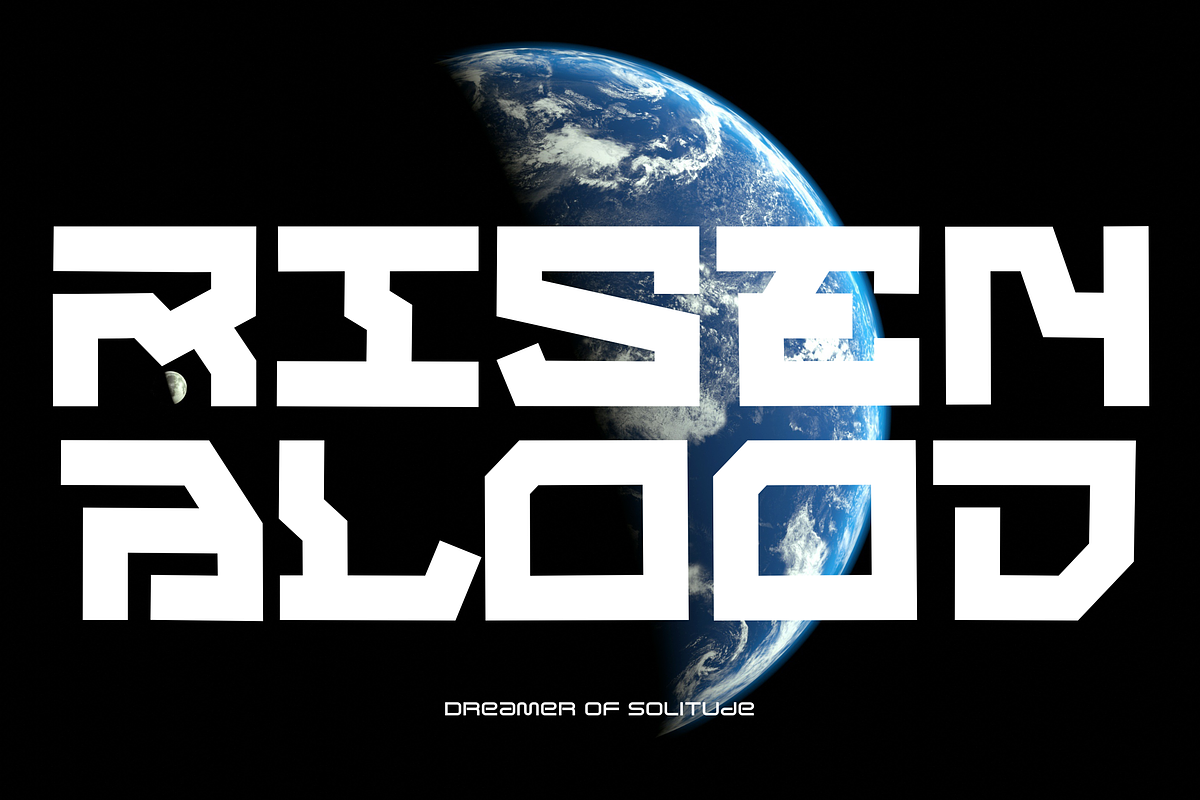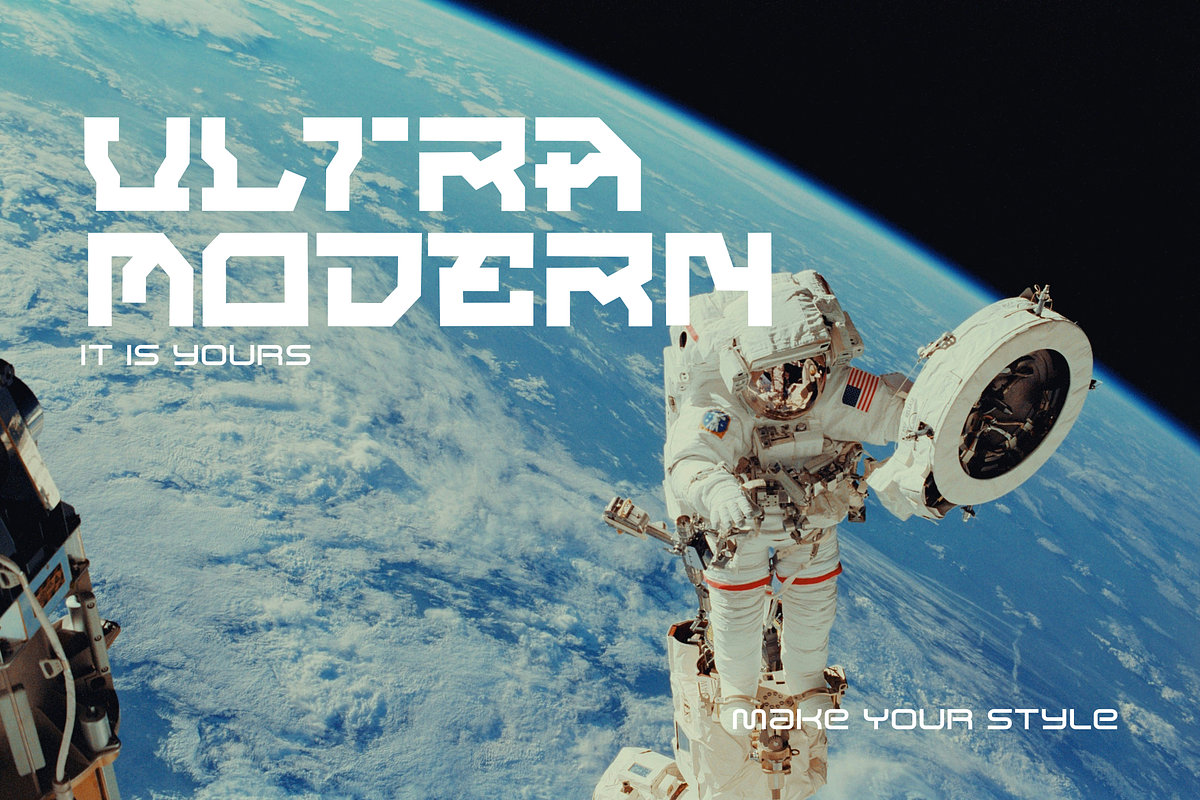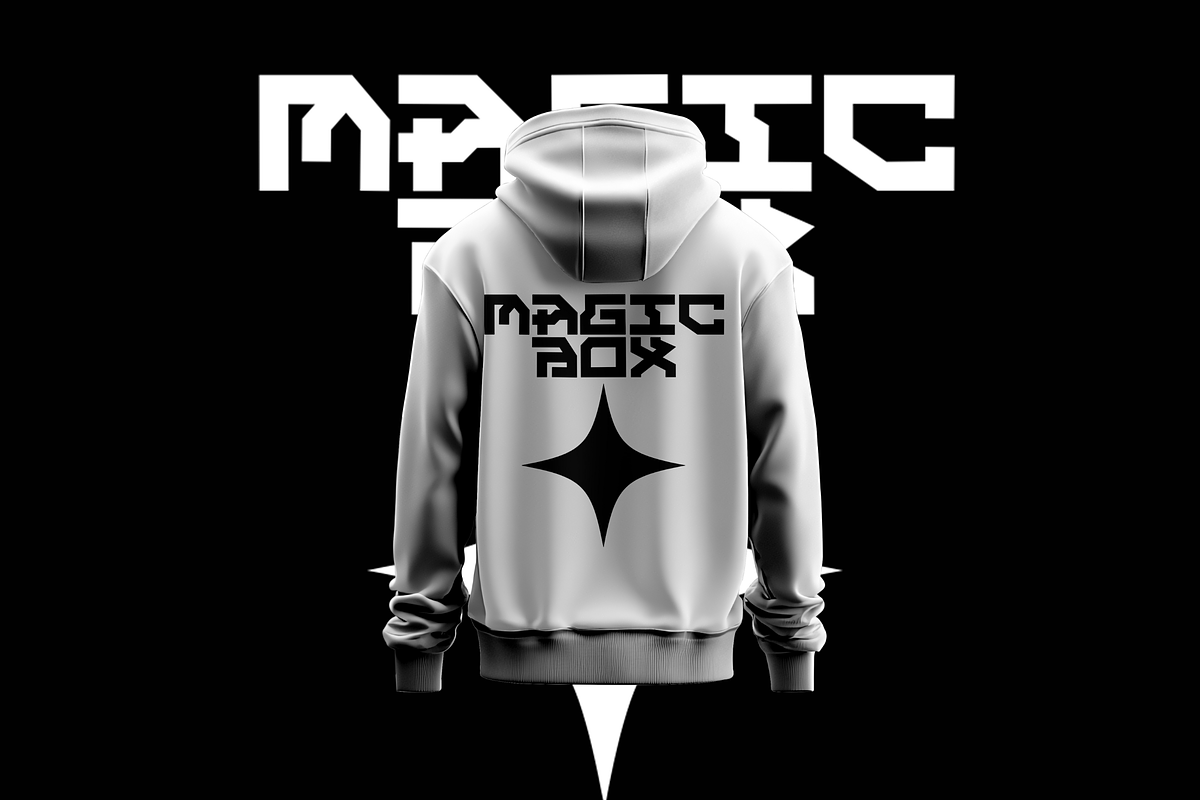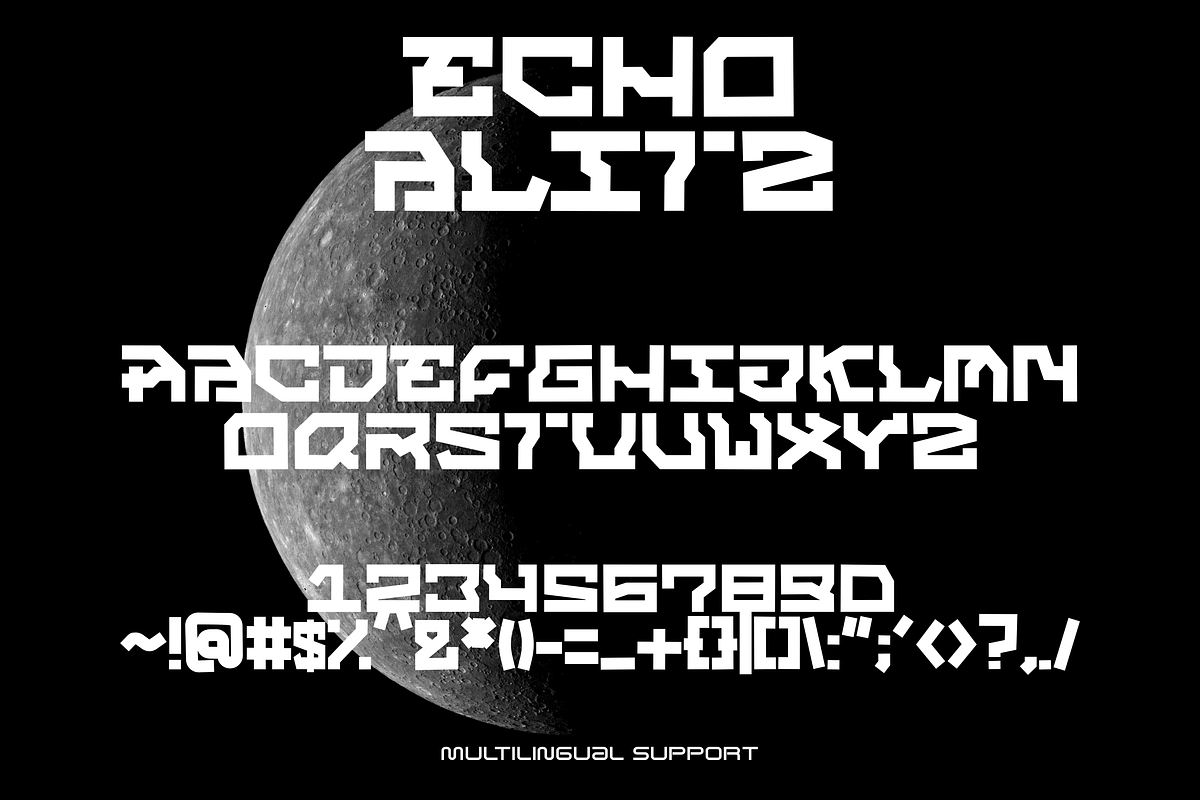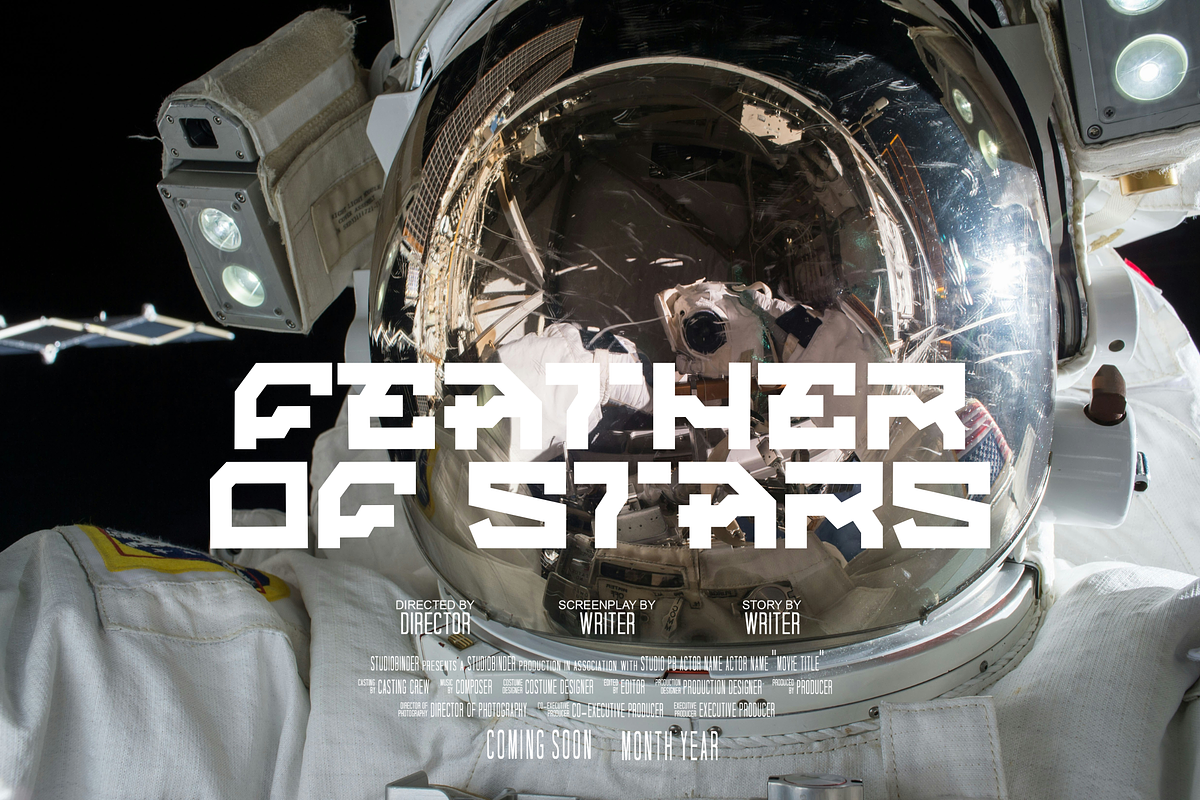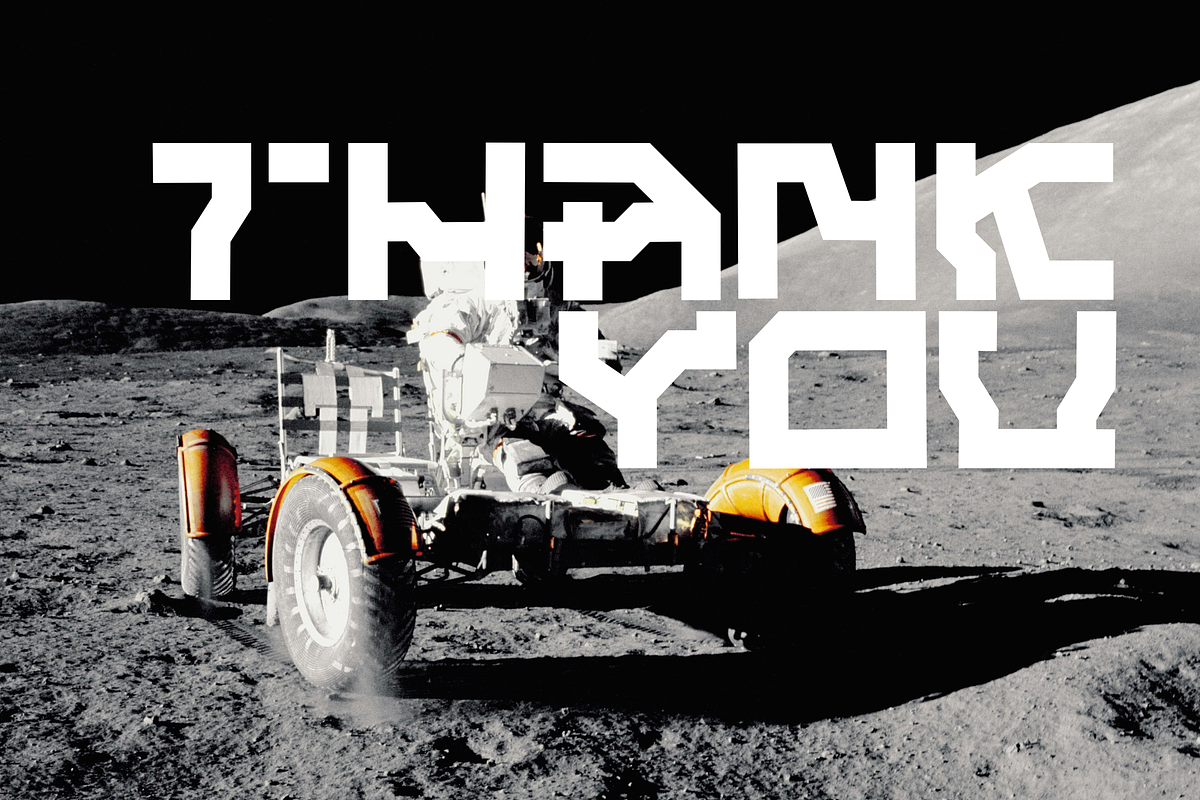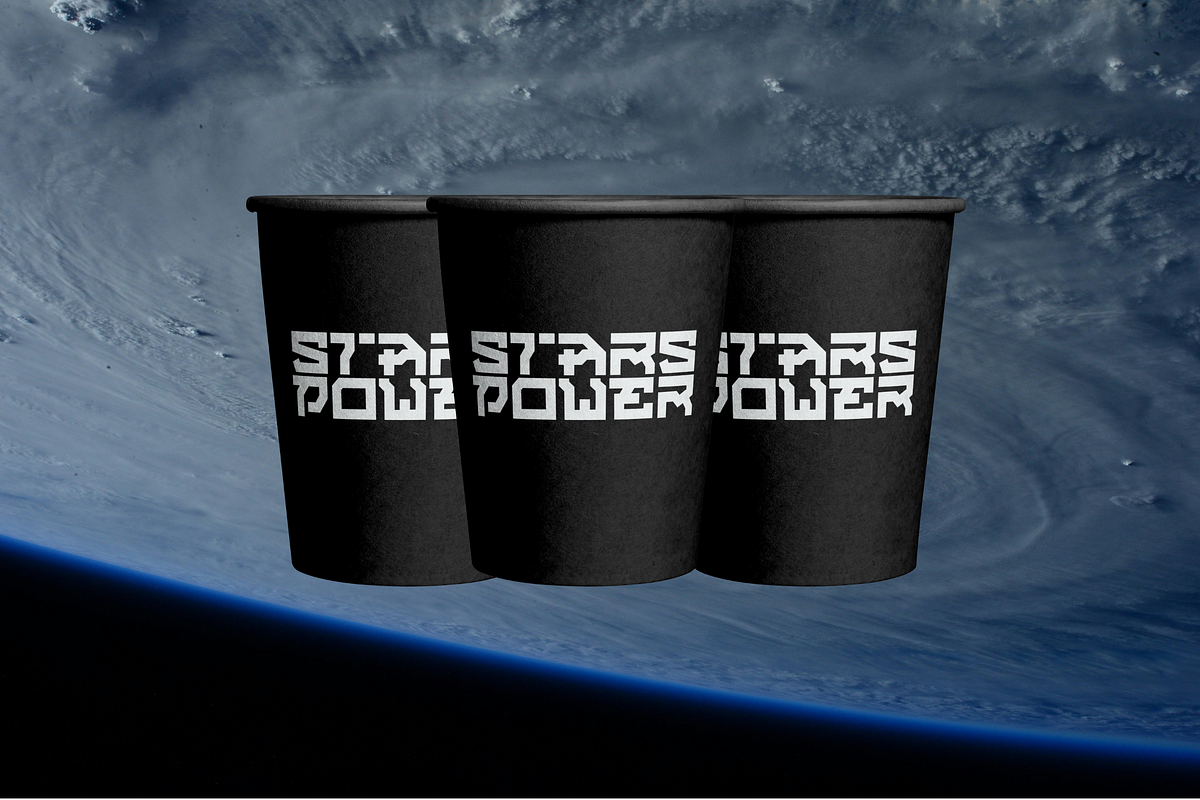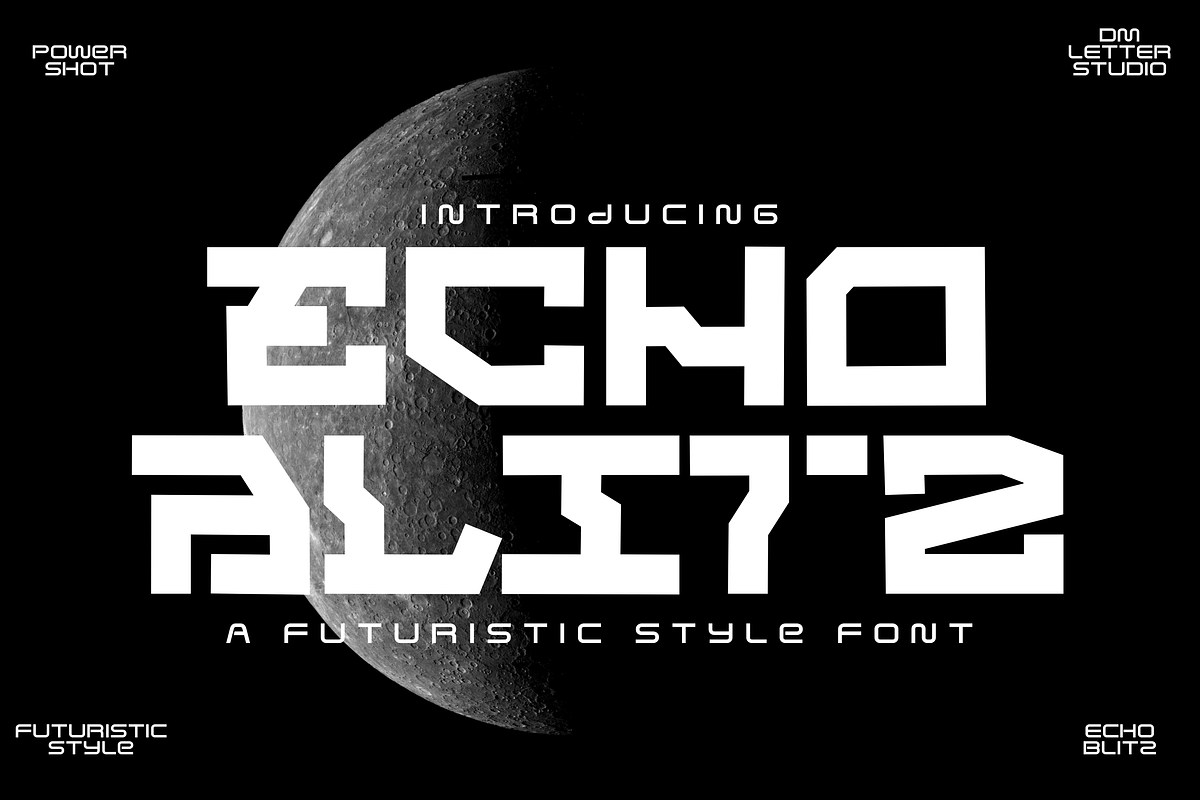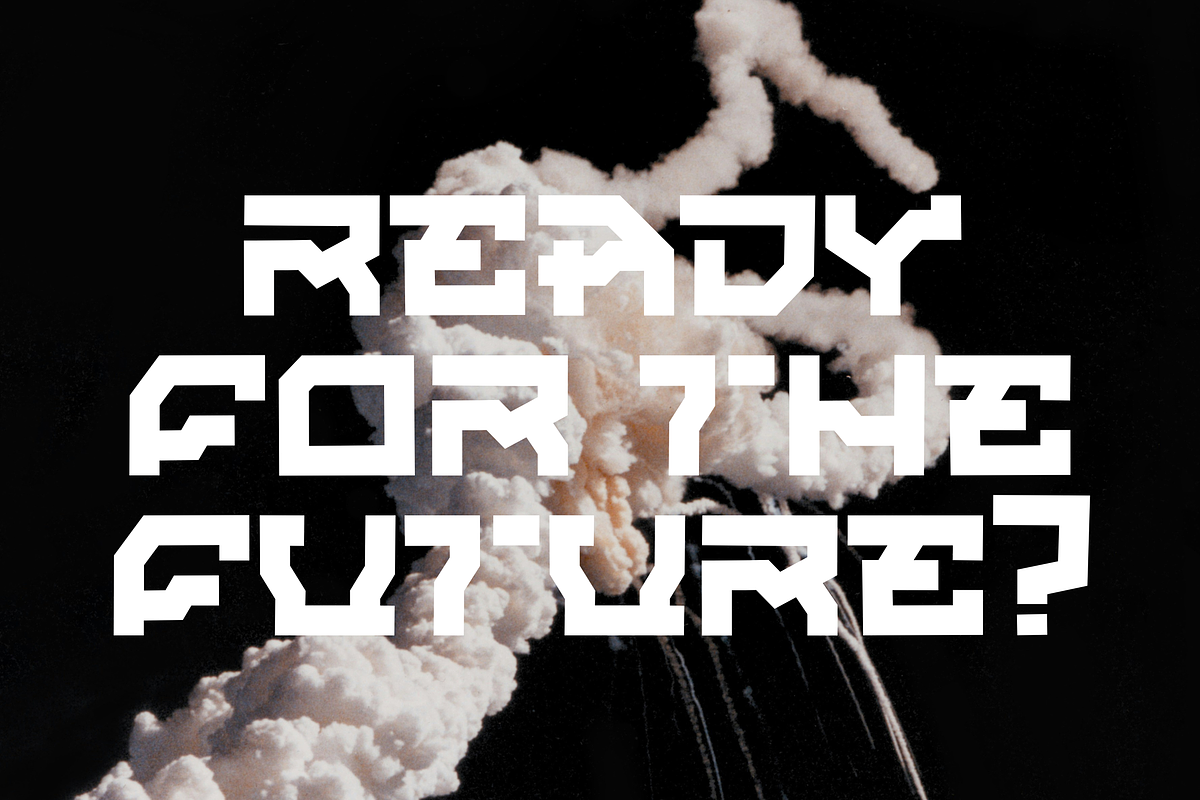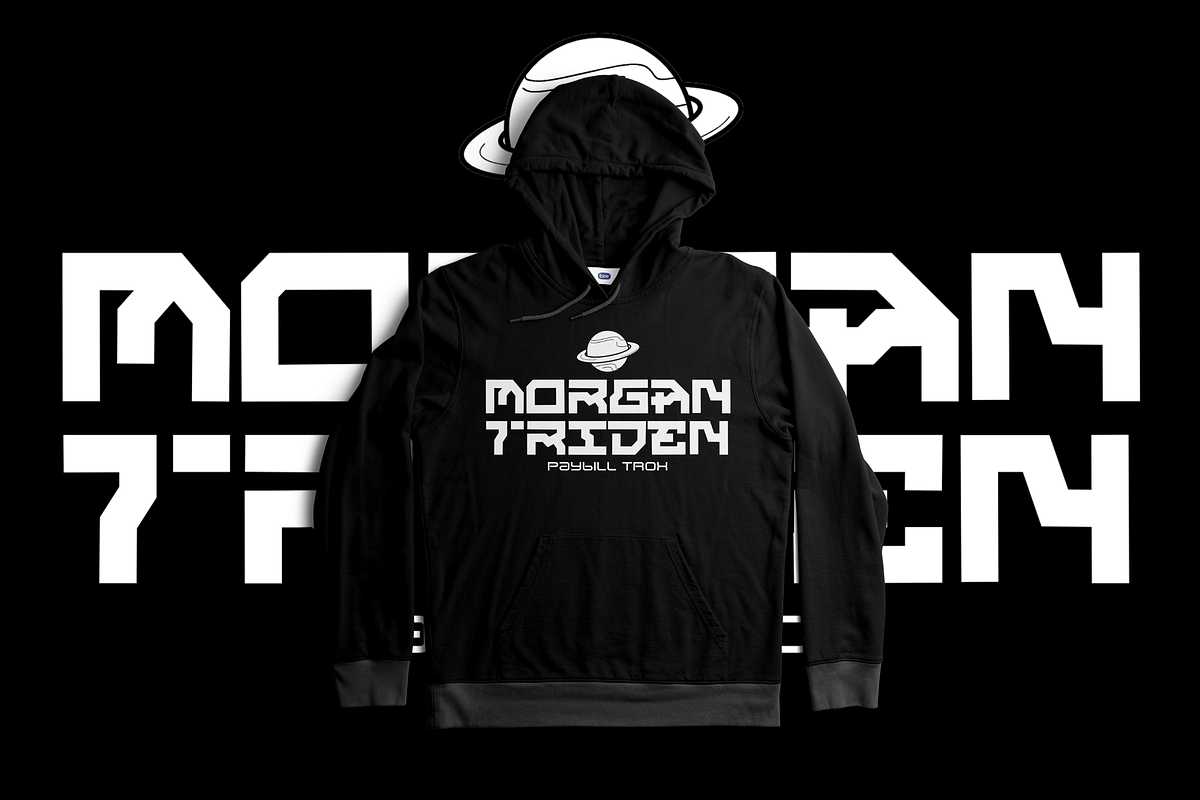
Echo Blitz – Futuristic Style
Introducing Echo Blitz, a high-impact futuristic font that captures the essence of modern sci-fi and tech-driven design. Brought to you by DM Letter Studio, this bold and geometric typeface features sharp cuts, robotic angles, and a distinctly digital aesthetic.
Perfect for headlines, logos, posters, tech branding, and space-themed visuals, Echo Blitz stands out in both digital and print projects. Whether you're designing a cyberpunk interface, a gaming title, or a sci-fi movie poster, Echo Blitz delivers a powerful visual punch.
Bold futuristic display font
Uppercase characters with sharp, angular structure
Includes punctuation and symbols
Perfect for sci-fi themes, tech branding, esports, and digital art
Multilingual support included